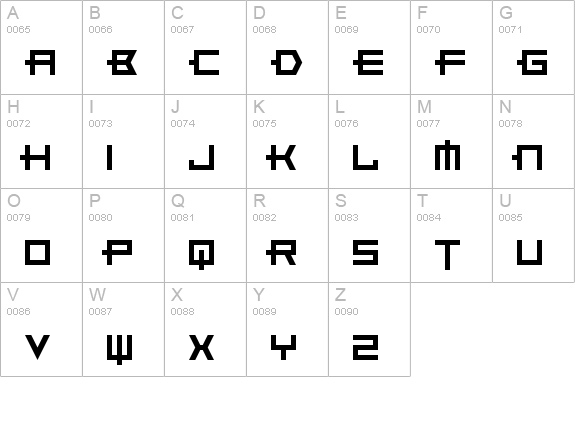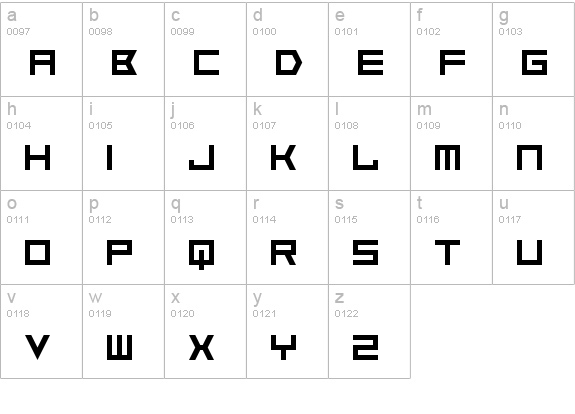
Xero's Karma Regular Font Details
Xero's Karma Regular is the standard, neutral variant in the Xero's typeface family \xE2\x80\x94 well suited to general body text, paragraphs, and standard typographic work.
Xero's Karma Regular font exudes a harmonious balance of elegance and readability. With its clean lines and timeless appeal, Karma Regular is a versatile typeface that is perfect for a wide range of design projects. Whether you are working on branding materials, editorial layouts, or digital designs, this font will add a touch of sophistication to your work. One of the best features of Karma Regular font is that it is available for free download at FontsMarket.com. This means that you can easily access this high-quality font without any cost, making it a valuable addition to your font library. With its effortless blend of style and functionality, Karma Regular is sure to elevate your projects and leave a lasting impression on your audience.